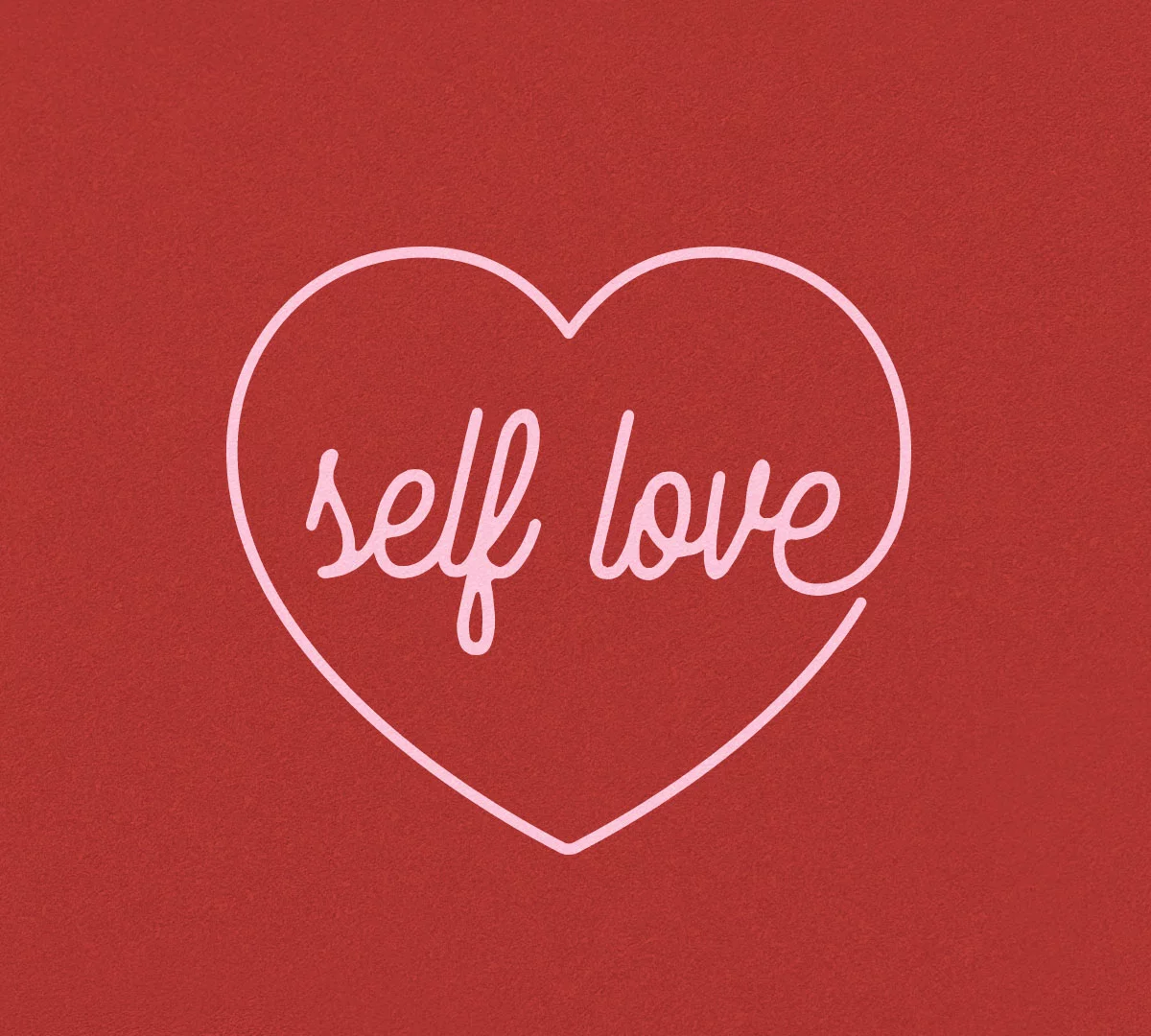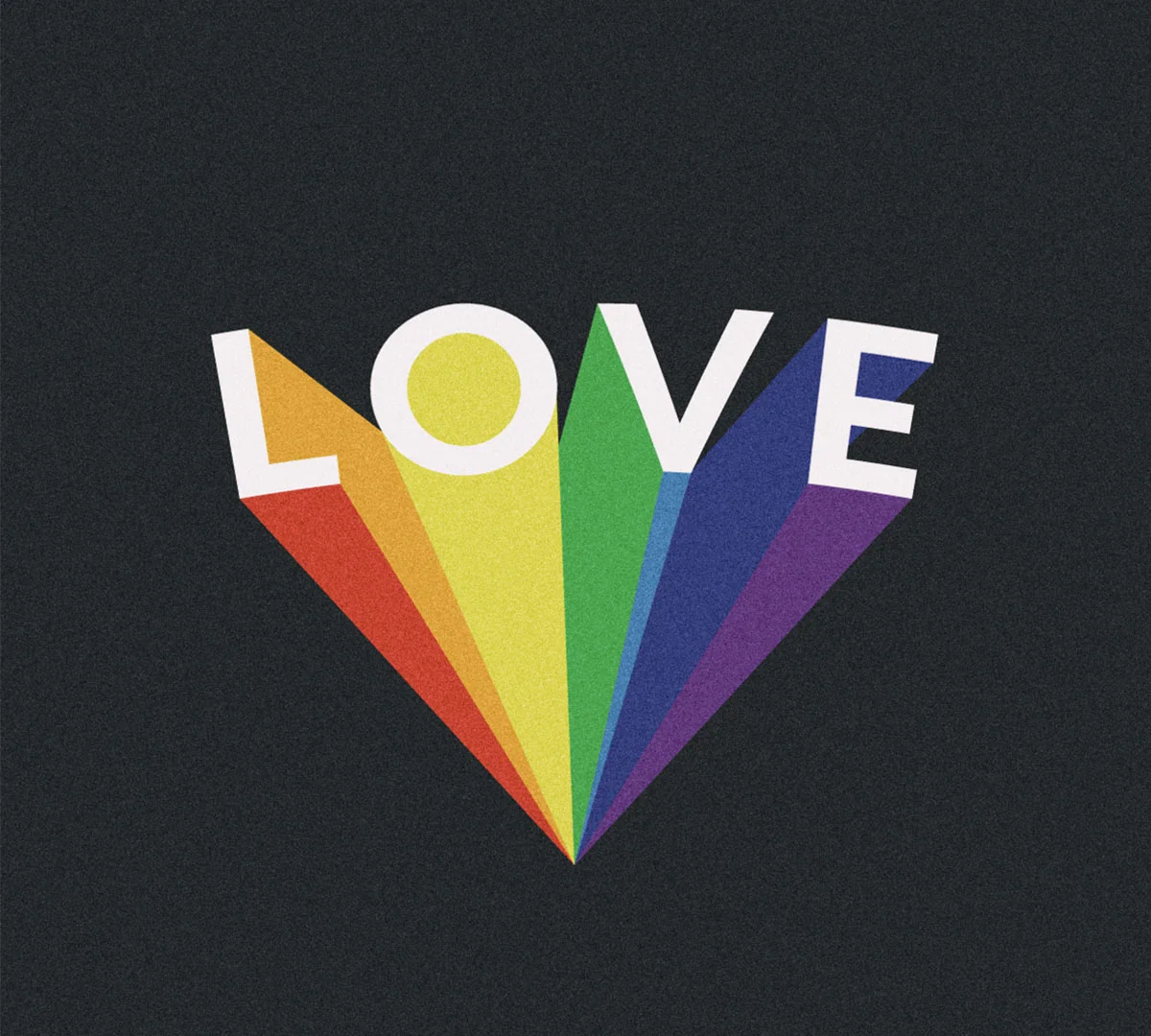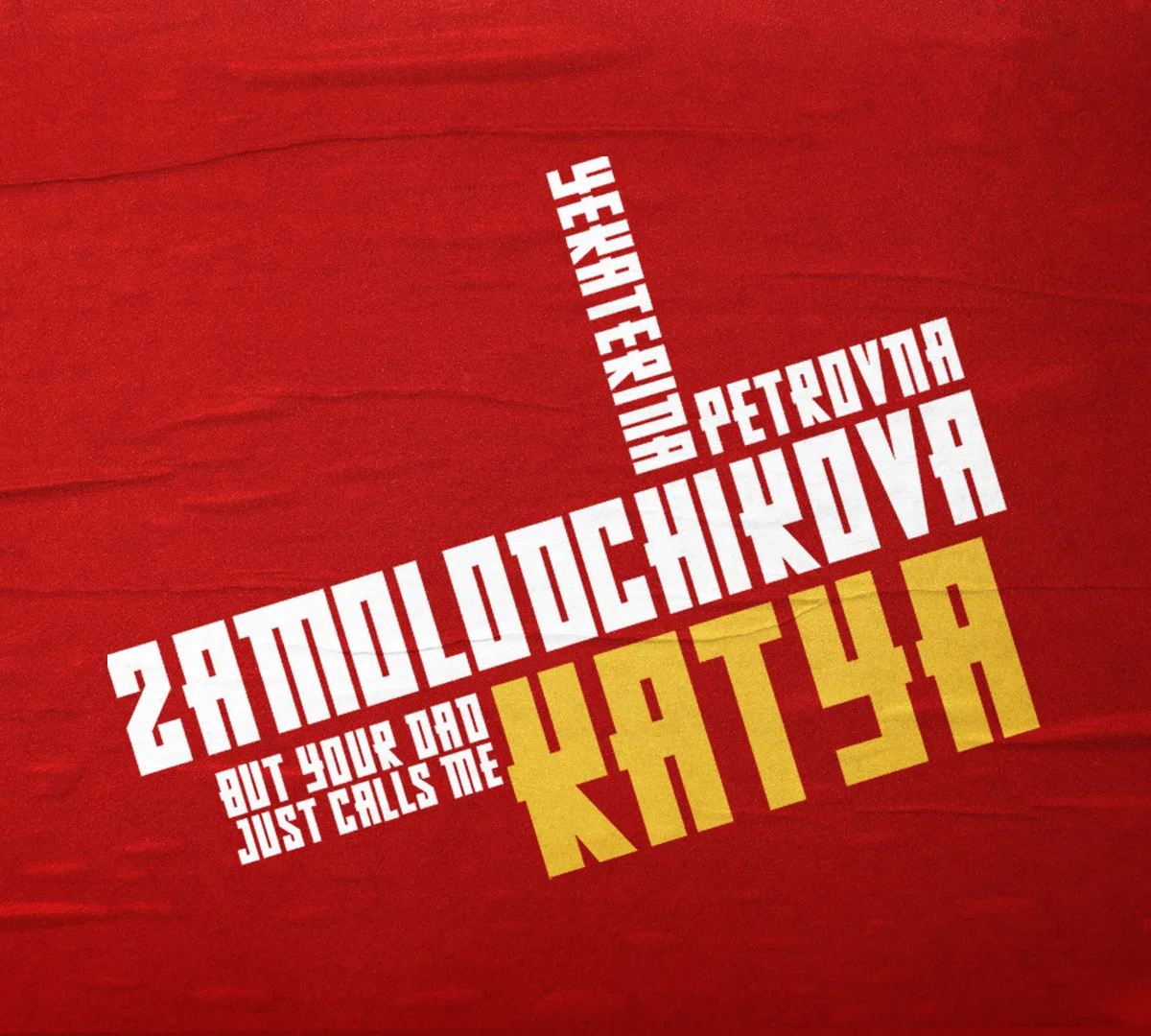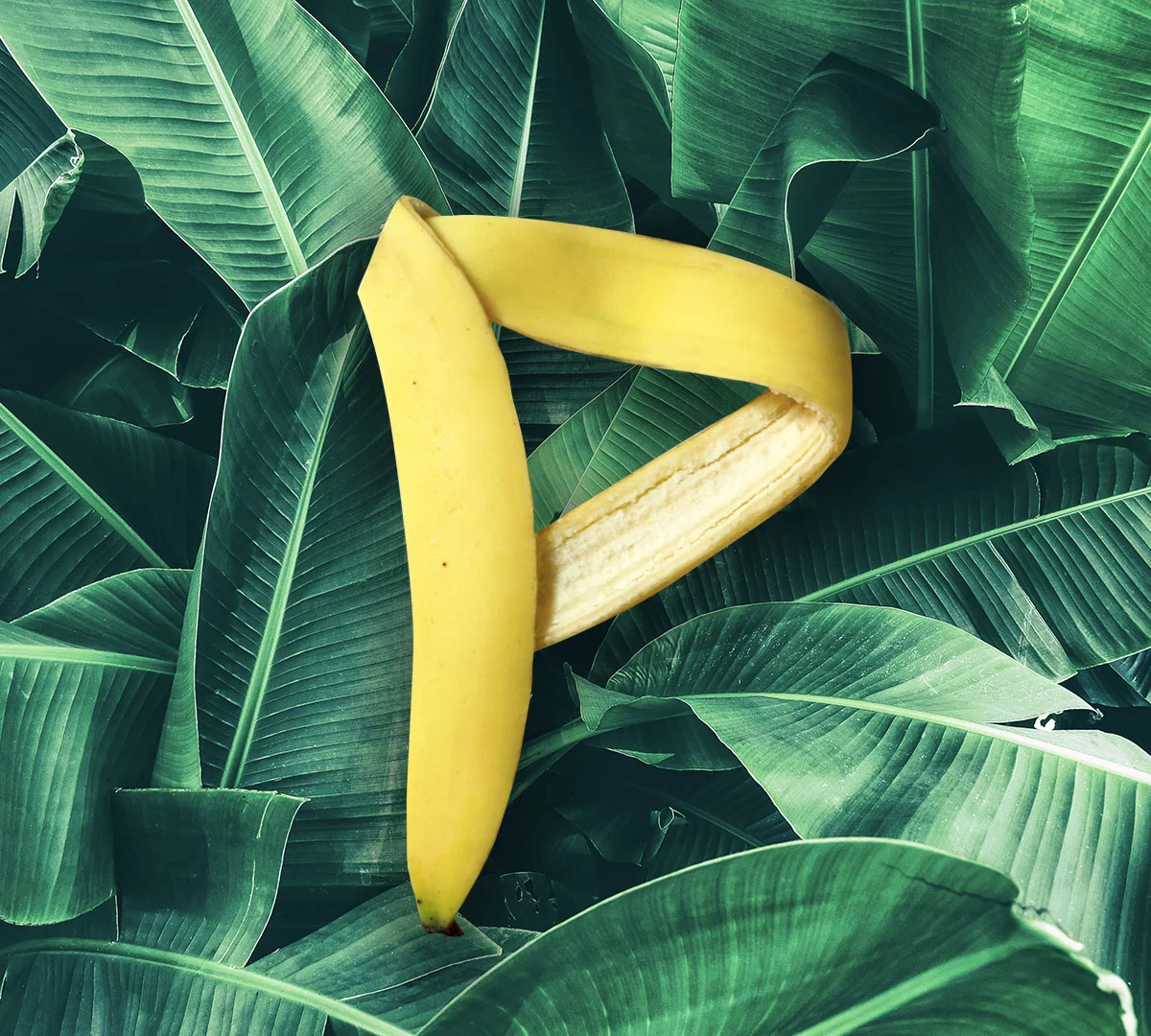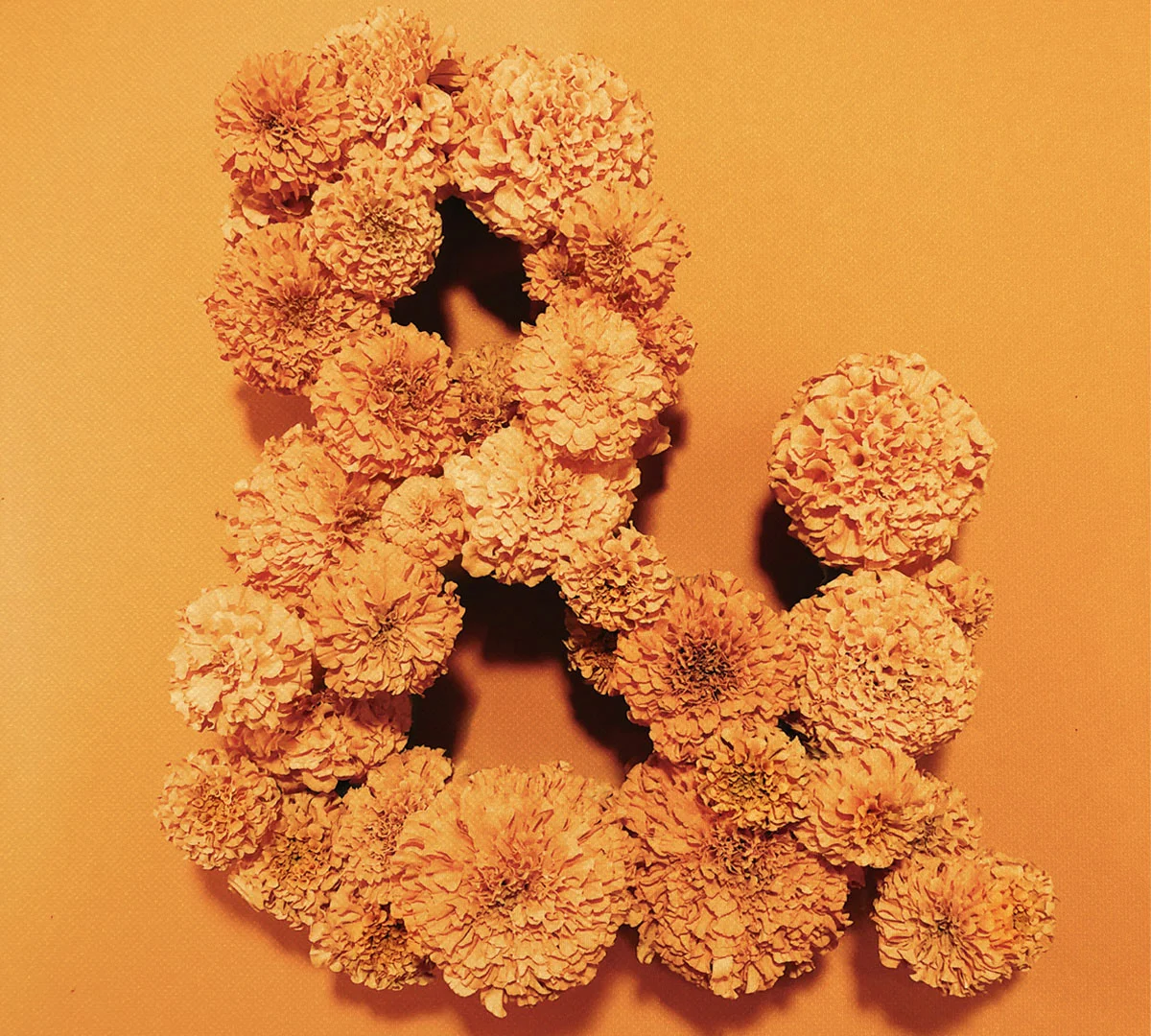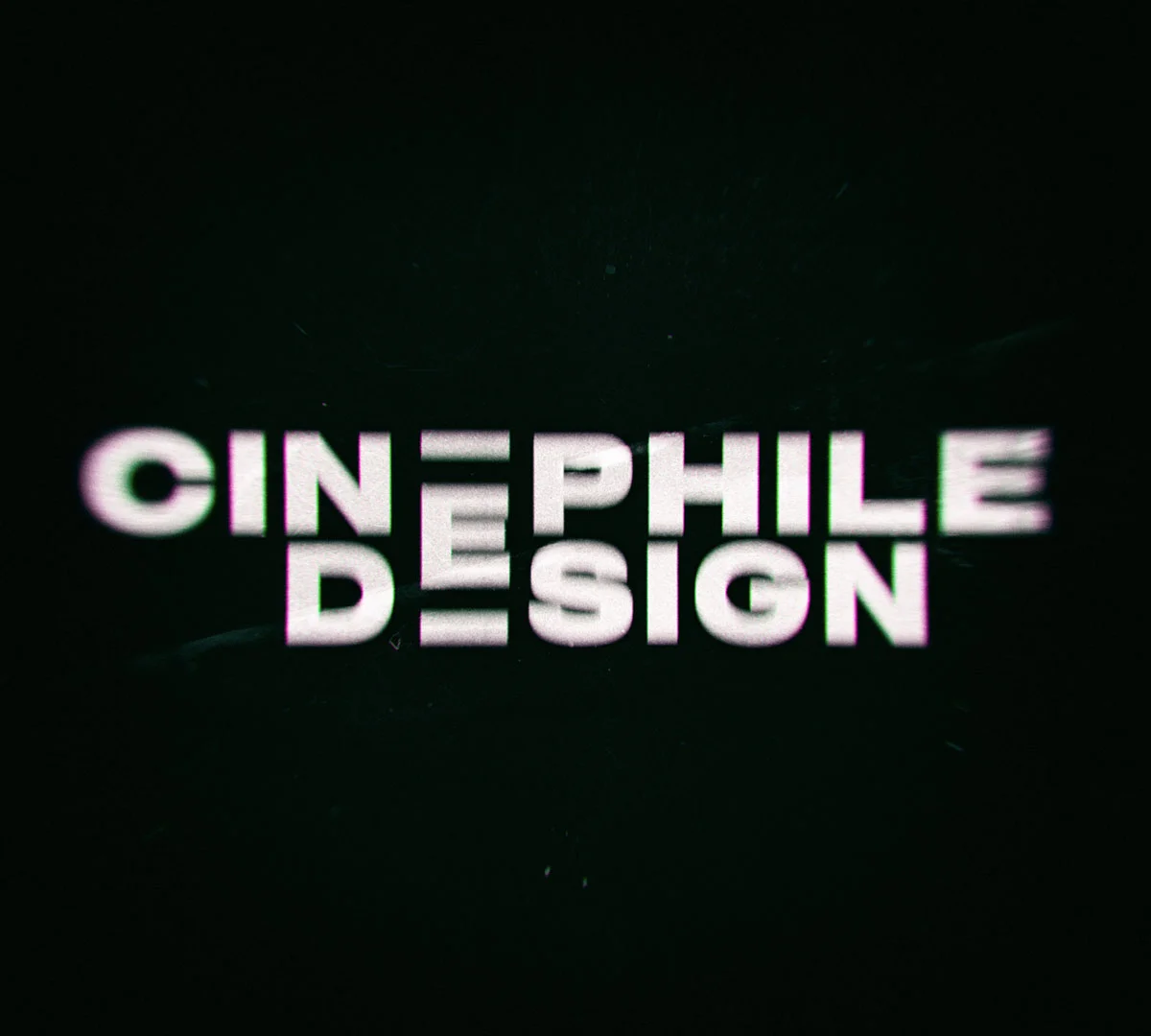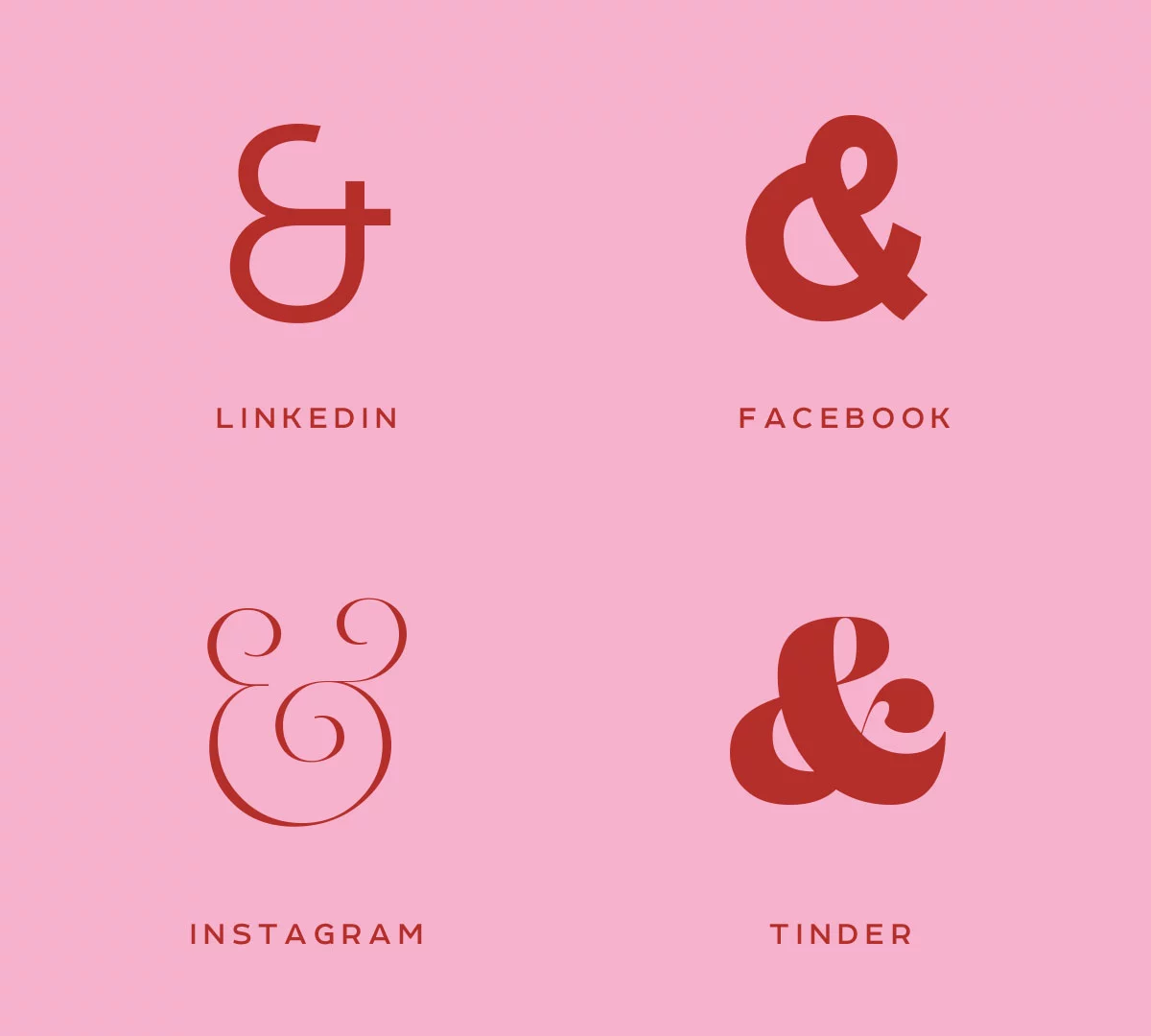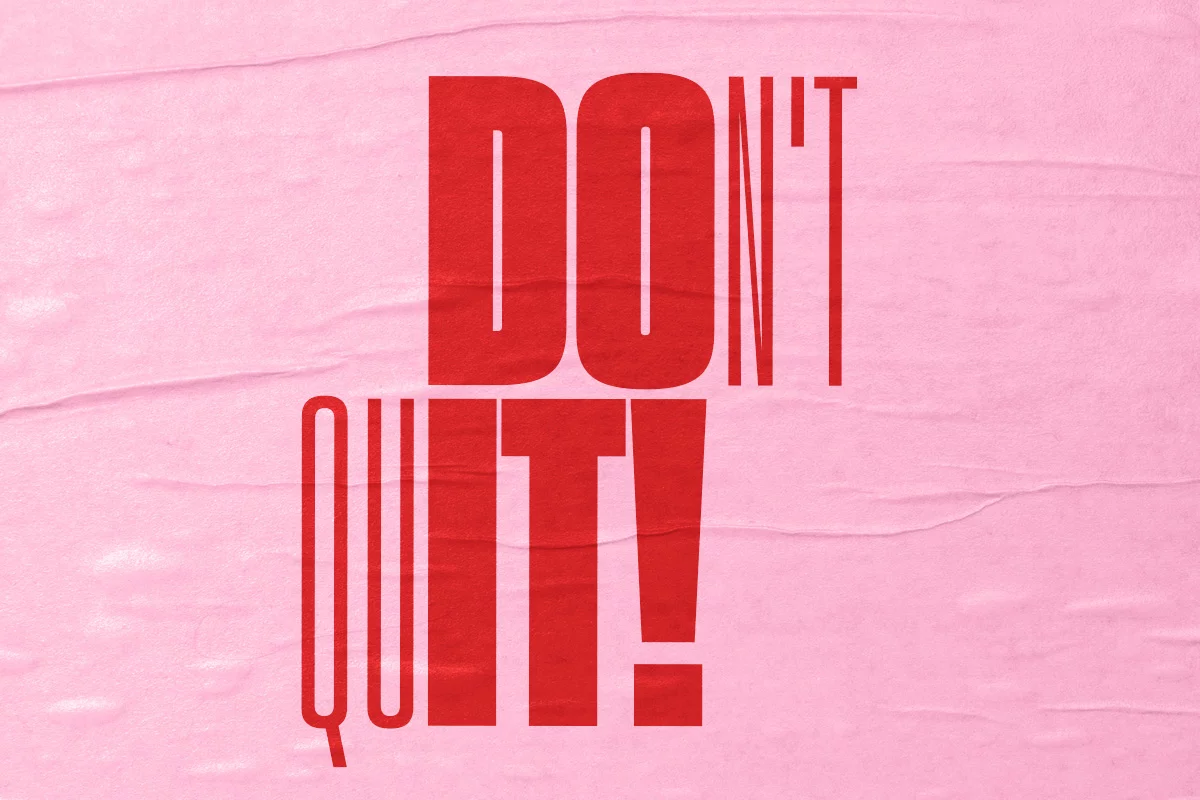
‘My name is Paulina but people call me Pepper’ is how Mexican Graphic Designer and creator of Fuck Yeah Pepper (@fuckyeahpepper) introduces herself. She quickly adds that’s she’s ‘a total typography geek’, too — which sounds great to us — explaining that she finds typography totally fascinating… ‘It’s like visual psychology’. Obsessed with typefaces even before she started college, Pepper tells us, ‘I don’t only read, I admire typefaces. I enjoy working with them. My favourite part on a project is the typography selection, I believe it says a lot about you as a designer’
Having worked in advertising, branding and in the music industry, Pepper’s also been running her own personal brand since 2017, alongside taking on freelance branding projects and creating original content. ‘I started Fuck Yeah Pepper as a need to exploit my passion for typography, pop culture, and life’, the designer tells us, ‘I basically needed to experiment and create stuff I knew I couldn’t do on a full-time job’.
We’re big fans of Fuck Yeah Pepper. Taking a look over Pepper’s Instagram feed, you can see tonnes of fresh slogans and gorgeous lettering art which share powerful messages whilst appearing off the cuff, sharp, funny and always relevant. However, Pepper wanted to shared with us some details on a project she loves, but which she’s not been able to invest quite as much time in of late…
The name of this project is Cinephile Designand it’san account dedicated to admiring the importance of graphic design in films. ‘I basically have a significant amount of files of typefaces, logos, packaging, etc. I have spotted in movies that I started to collect a long time ago’, Pepper explains. ‘And last year I thought about sharing it with geeks like me’. This is a really cool project in our eyes, as it creates a collated archive of some of the most ubiquitous logotypes around whilst highlighting some really amazing type form the film industry — it’s definitely great for gathering inspiration!
We also love the designer’s Katya piece. As Pepper articulates, ‘I’m a huge fan of drag and this is one of my favorite compositions. I have always loved the graphic design of Russian Constructivism, and I’ve used it here as inspiration for this poster of the best line from Read U Wrote U (RuPaul’s Drag Race). One of my goals is starting to create merch, and this piece would be definitely the first one’.